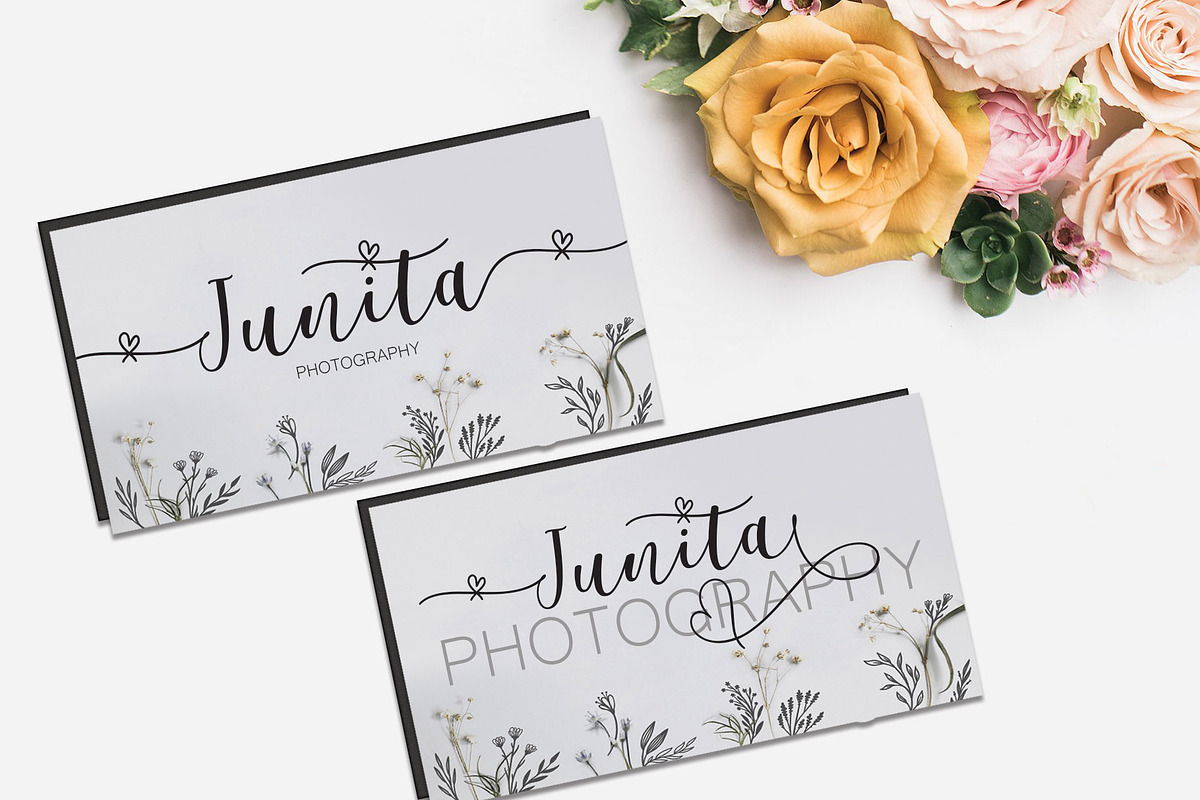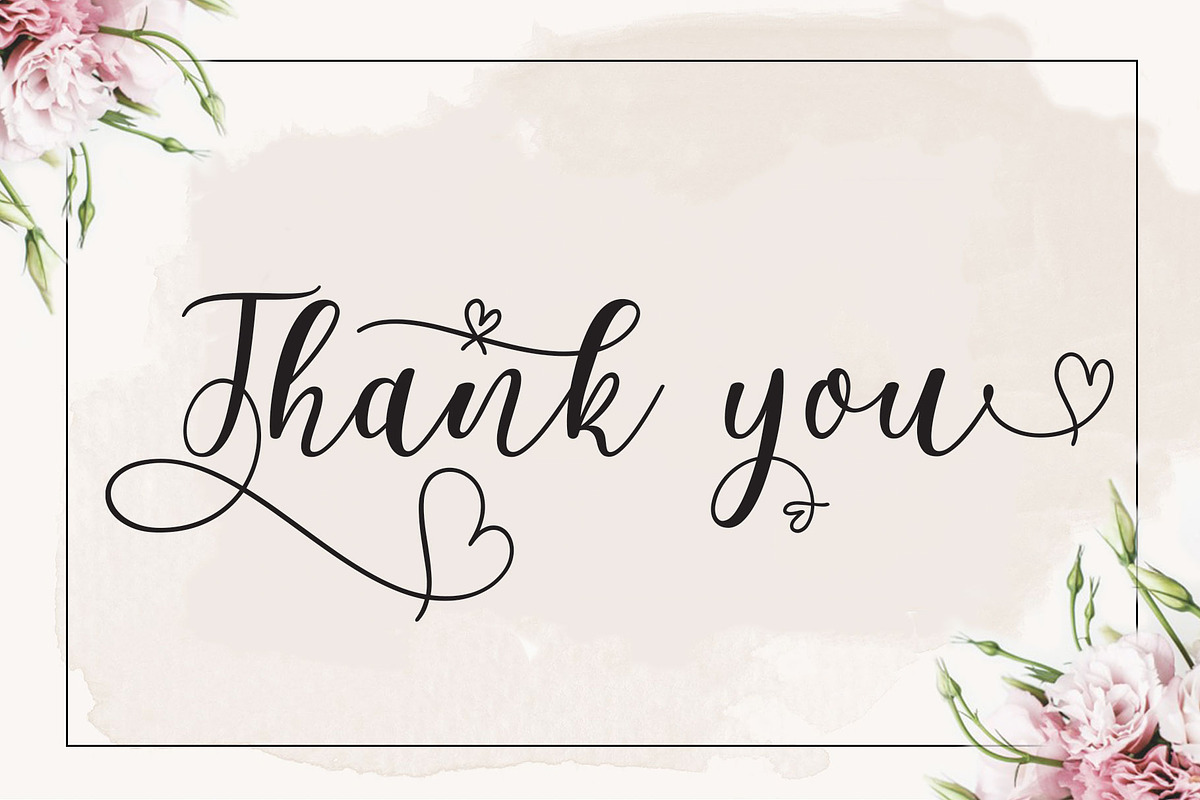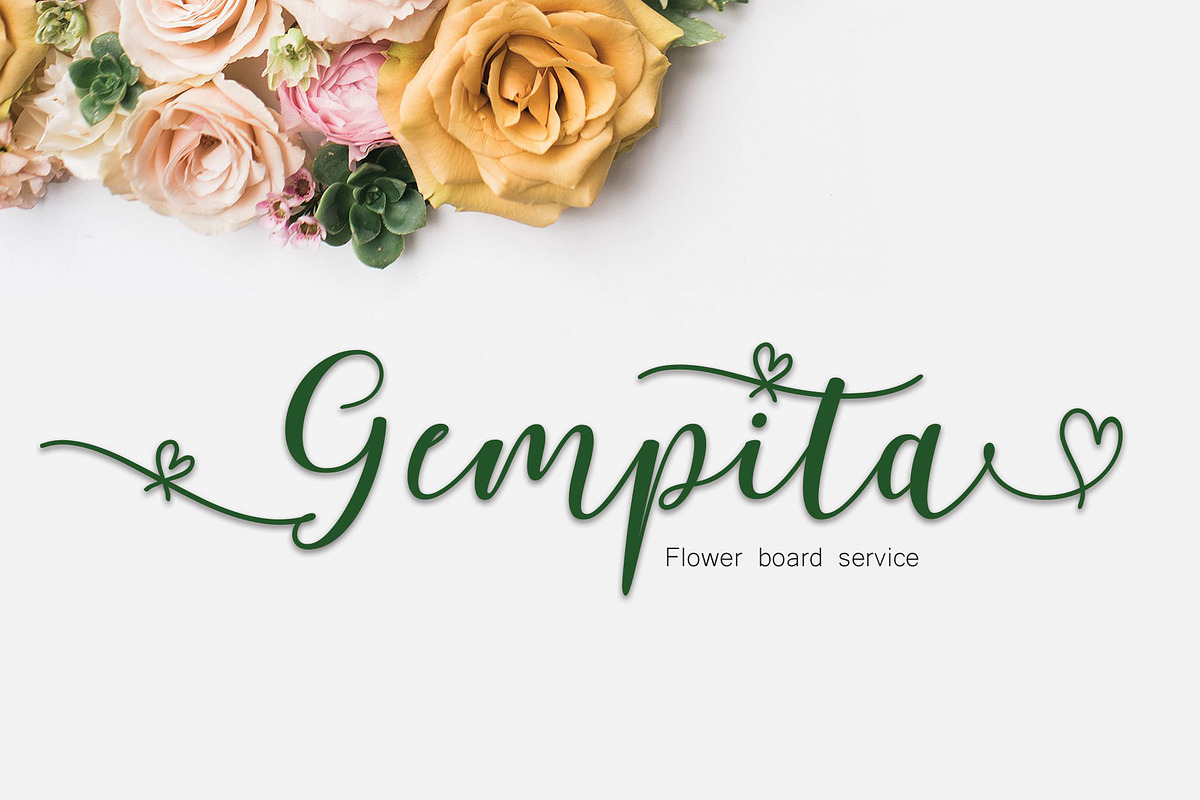
Delissia Script
Delissia Script - a new fresh & modern script with a handmade calligraphy style, decorative characters and a dancing baseline! So beautiful on invitation like greeting cards, branding materials, business cards, quotes, posters, and more!
Delissia Script - includes lowercase and uppercase letters, numbers, punctuation marks, standard ligatures, swash, stylistic alternates, stylistic set and multiple language support.
Features Basic Latin A-Z and a-z Numbers Symbols